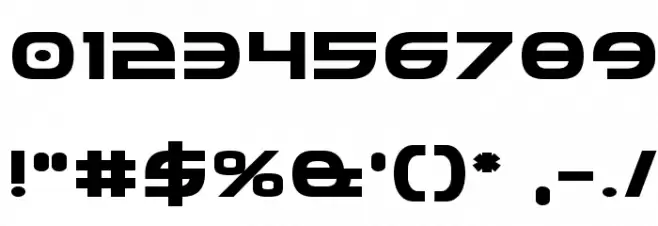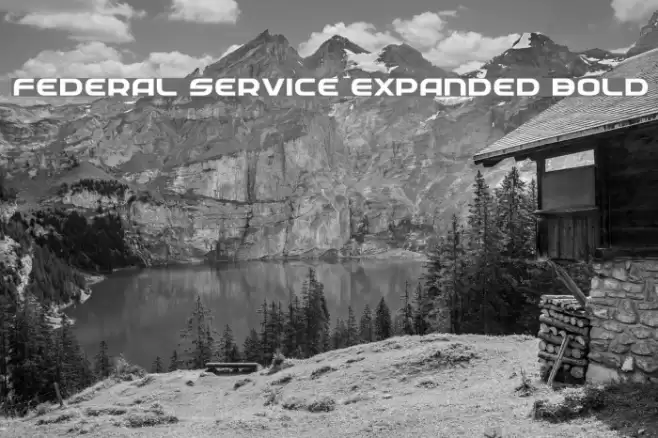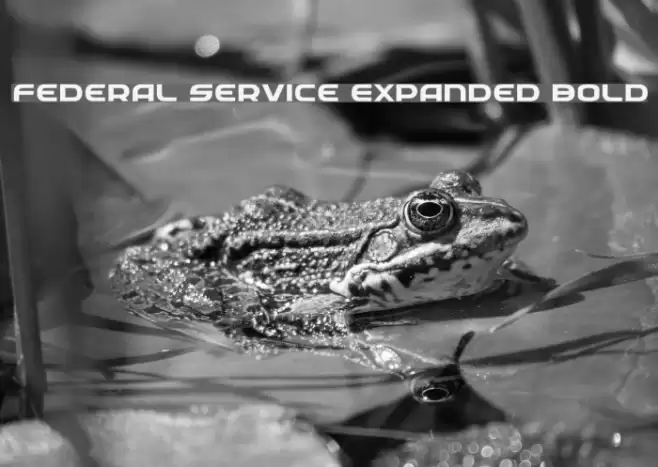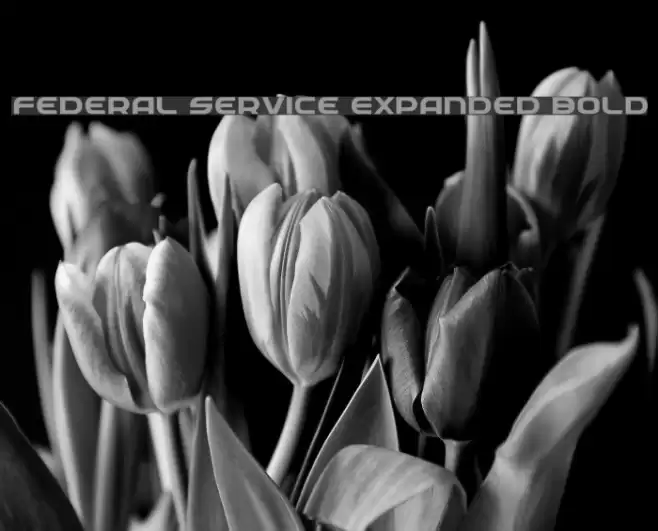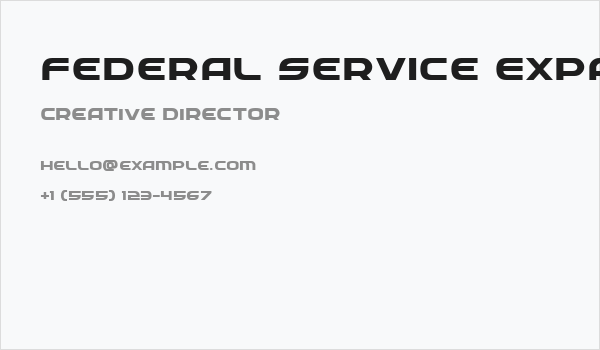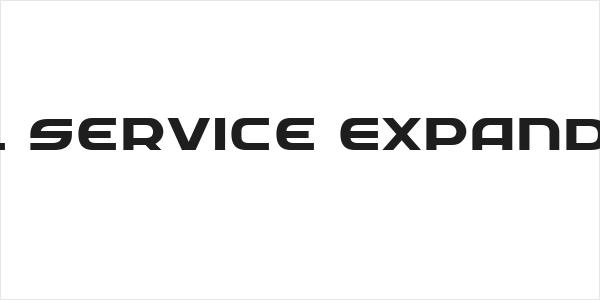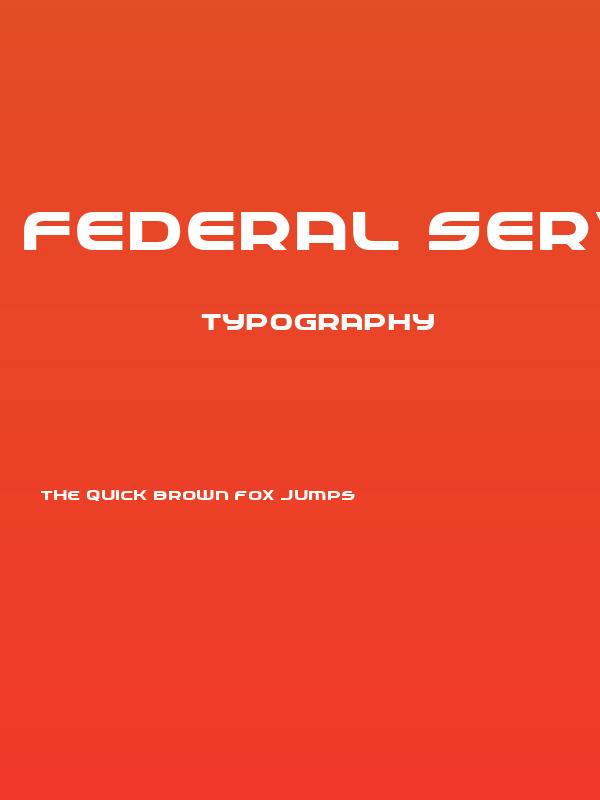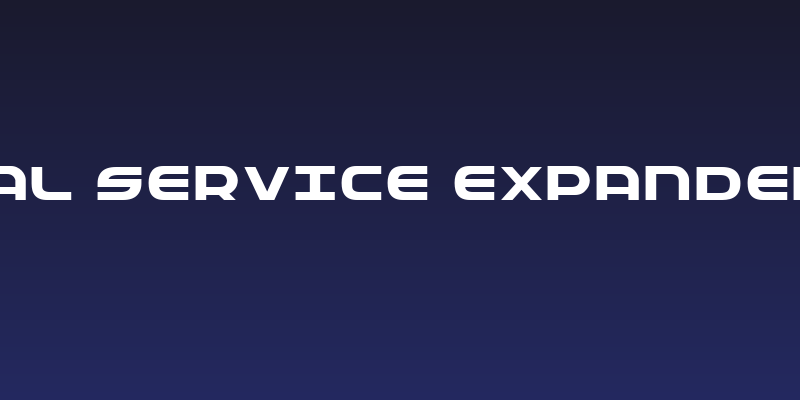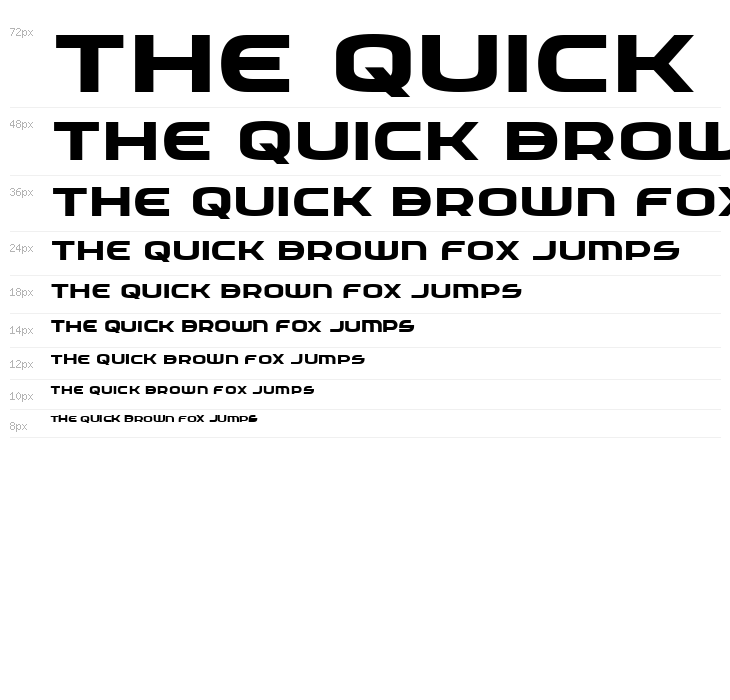
Federal Service Expanded Bold Font
Federal Service Expanded Bold Description
This font features a bold and expanded style with a modern and futuristic appearance. The characters are wide and have a geometric structure, providing a strong visual impact. The uppercase and lowercase letters maintain a consistent design, with rounded edges and a uniform stroke width. The numerals and special characters follow the same design principles, ensuring a cohesive look across all elements. The font's expanded width and bold weight make it ideal for attention-grabbing headlines and display purposes.
| Use Case | Headlines, Logos, Display |
| Proposed Projects | Ideal for branding, posters, headlines, and any project requiring a strong, modern aesthetic. |